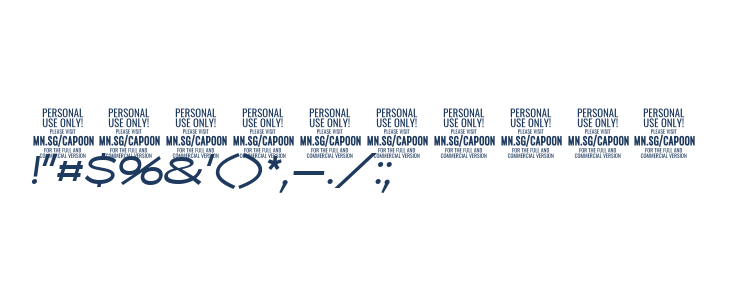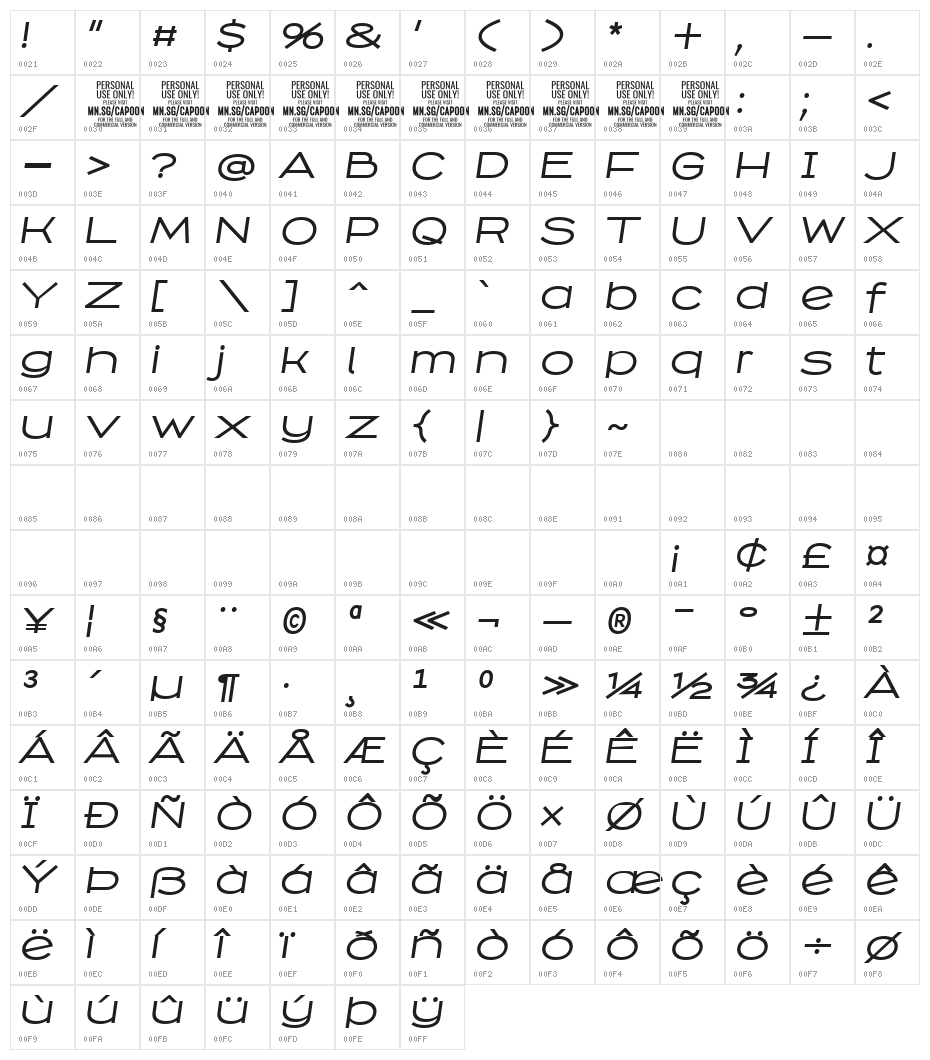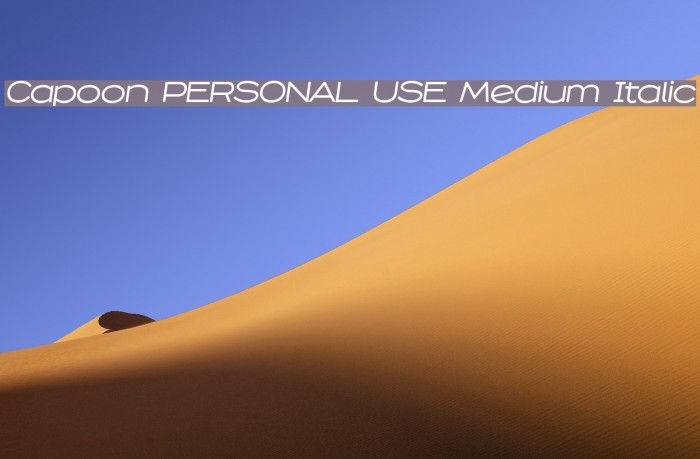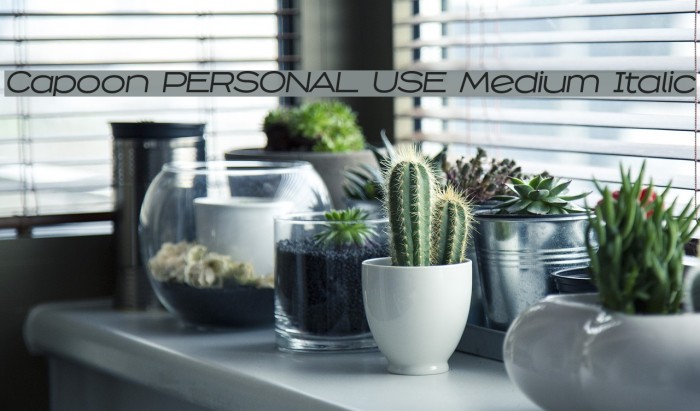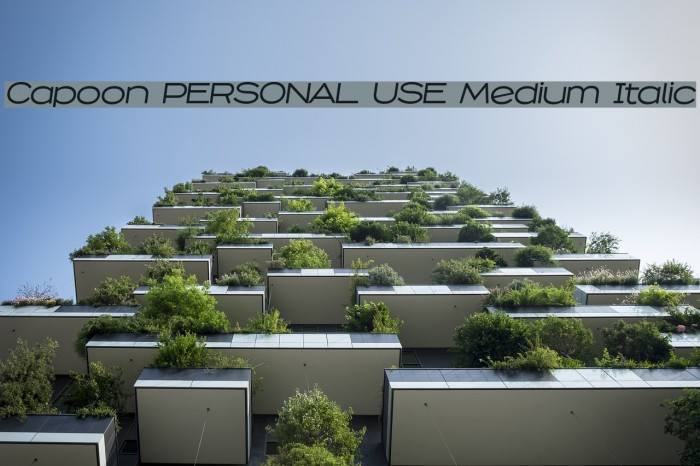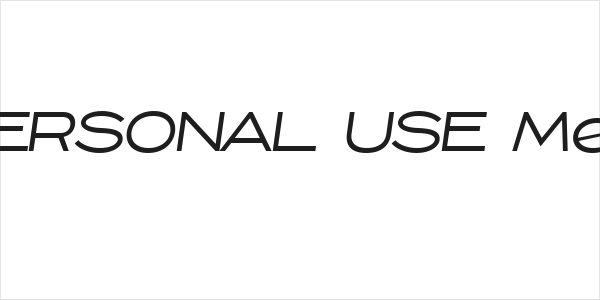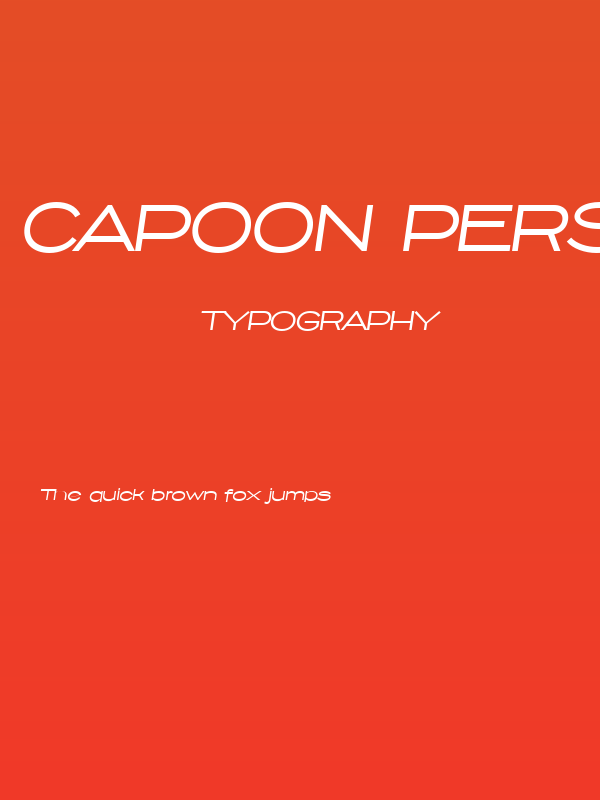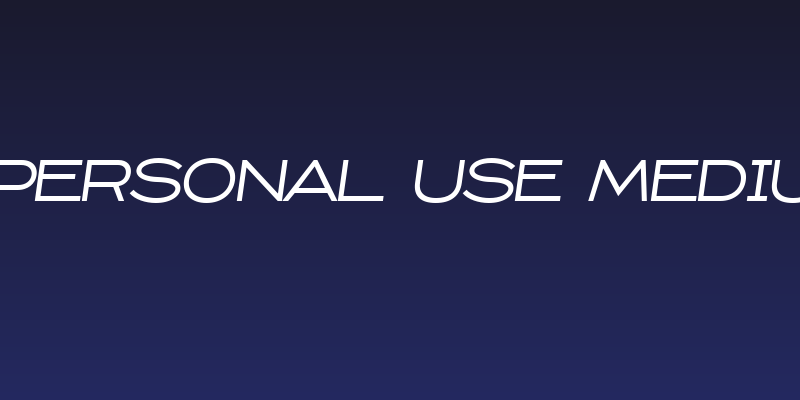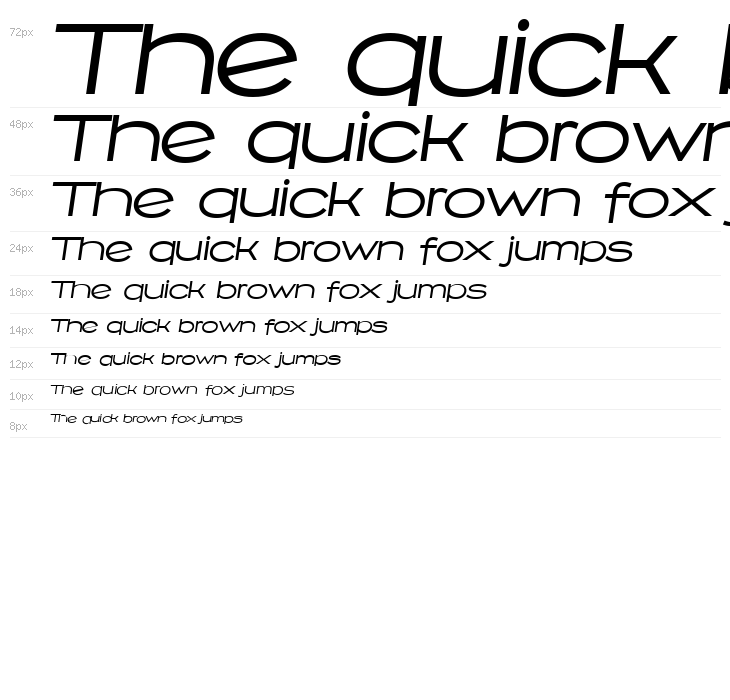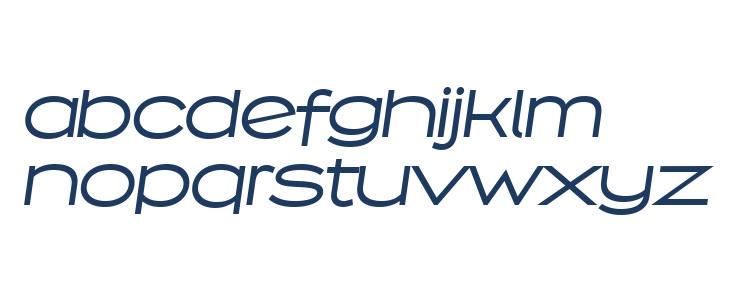
Capoon PERSONAL USE Medium Italic Font
Capoon PERSONAL USE Medium Italic Description
This font features a sleek, modern design with a distinct italic slant, giving it a dynamic and forward-moving appearance. The characters are crafted with a medium weight, providing a balanced presence that is neither too light nor too bold. The strokes are consistent, with a medium contrast that adds a subtle elegance to the overall look. The spacing between characters is normal, ensuring readability while maintaining a cohesive flow. Its contemporary style makes it suitable for a variety of applications, from digital media to print.
| Use Case | Headlines, Logos, Digital Media |
| Proposed Projects | Ideal for branding, advertising, digital media, and editorial design projects. |